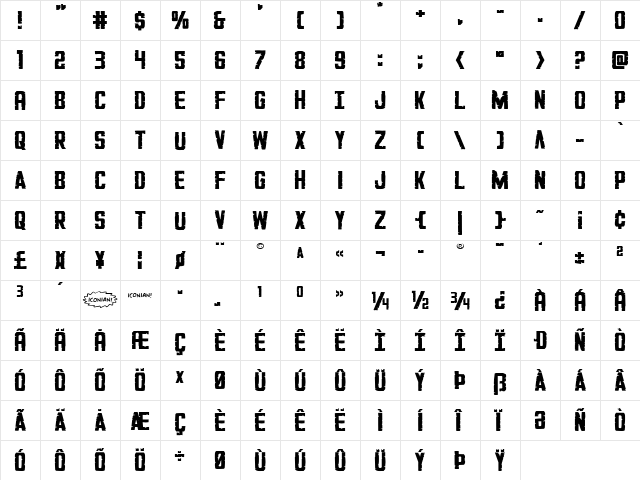
G.I. Incognito Expanded Expanded
Design Context for G.I. Incognito Expanded Typeface
G.I. Incognito Expanded is a composed and adaptable typeface that performs quietly and consistently across a wide range of design contexts.